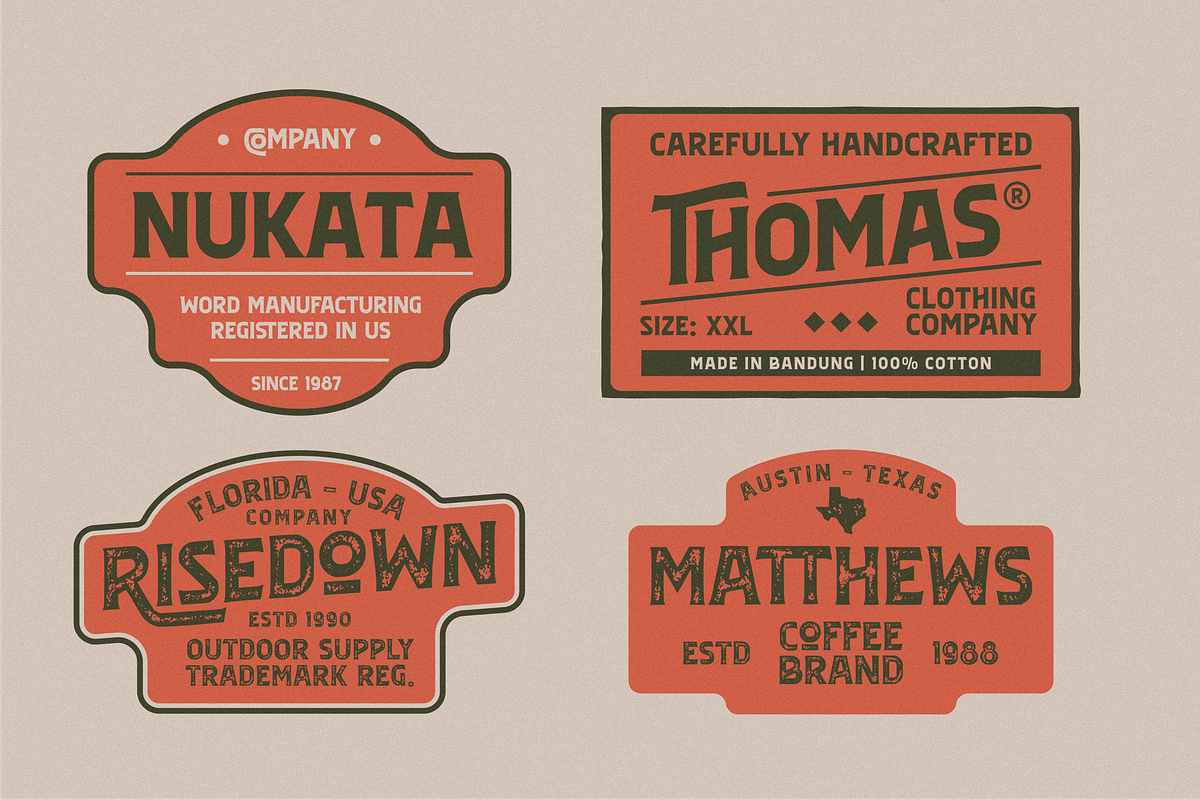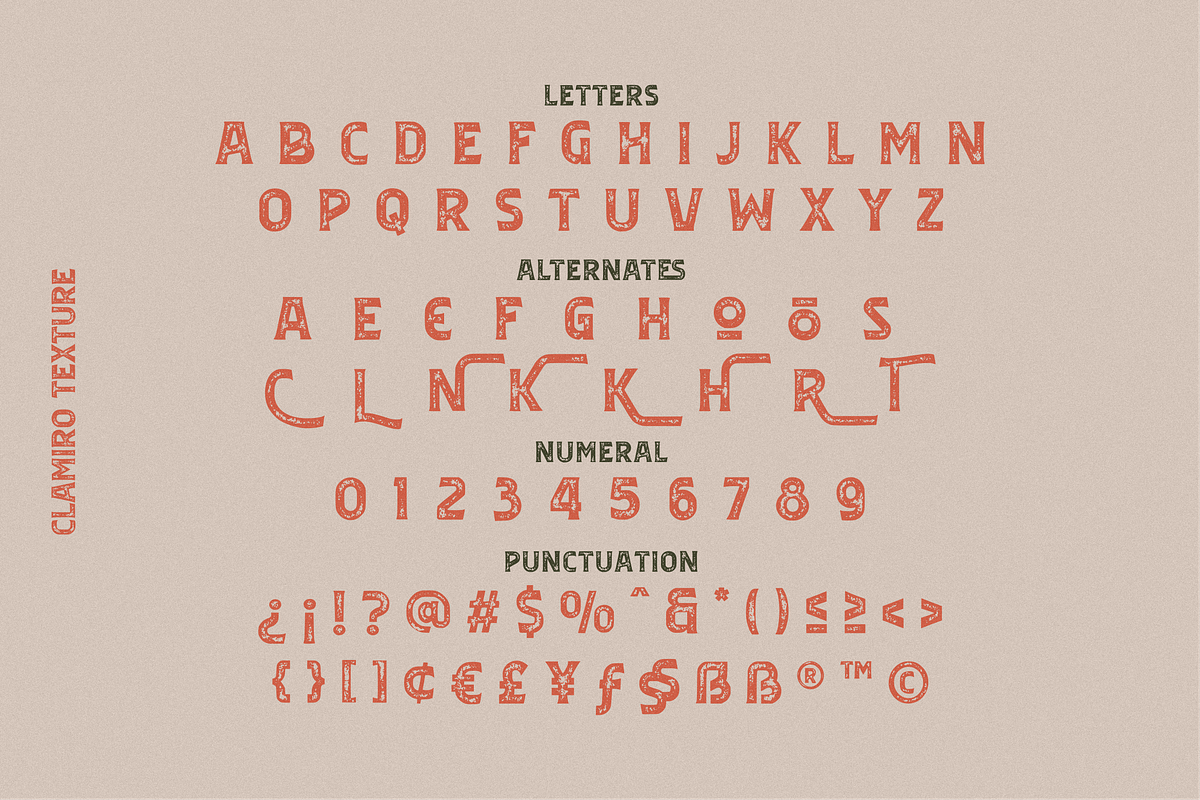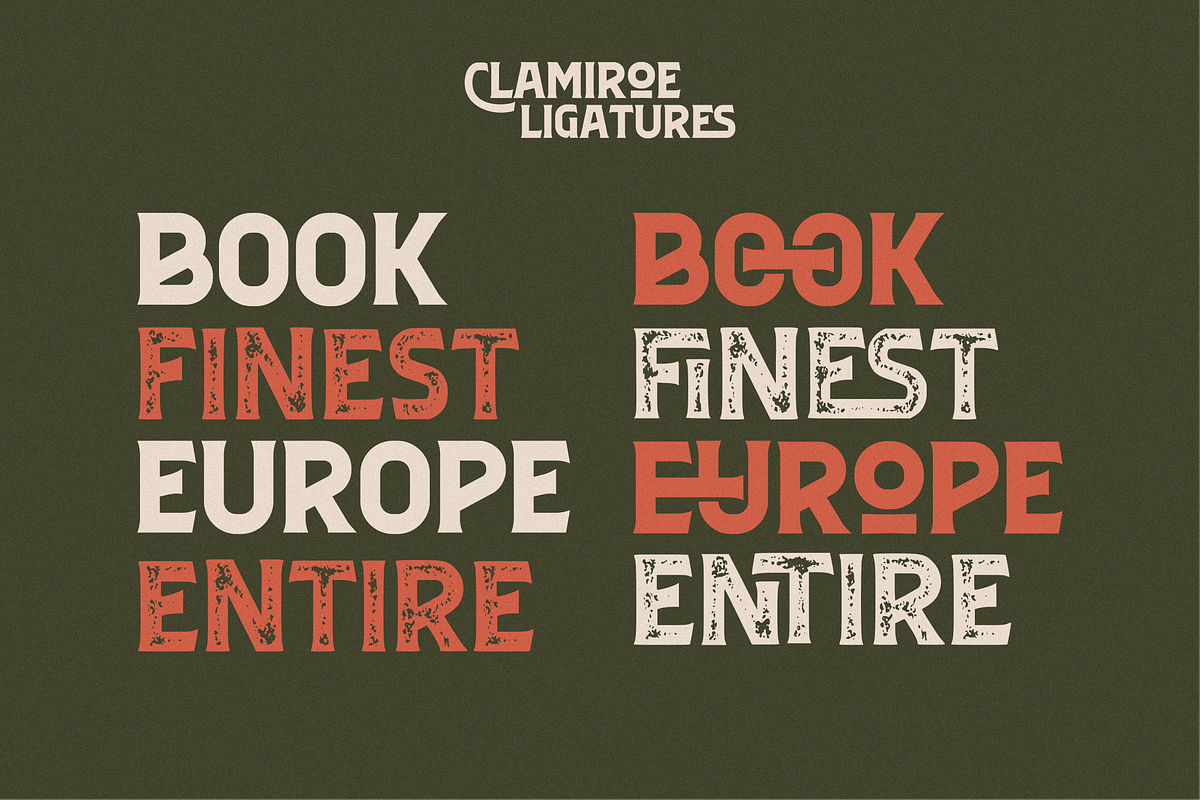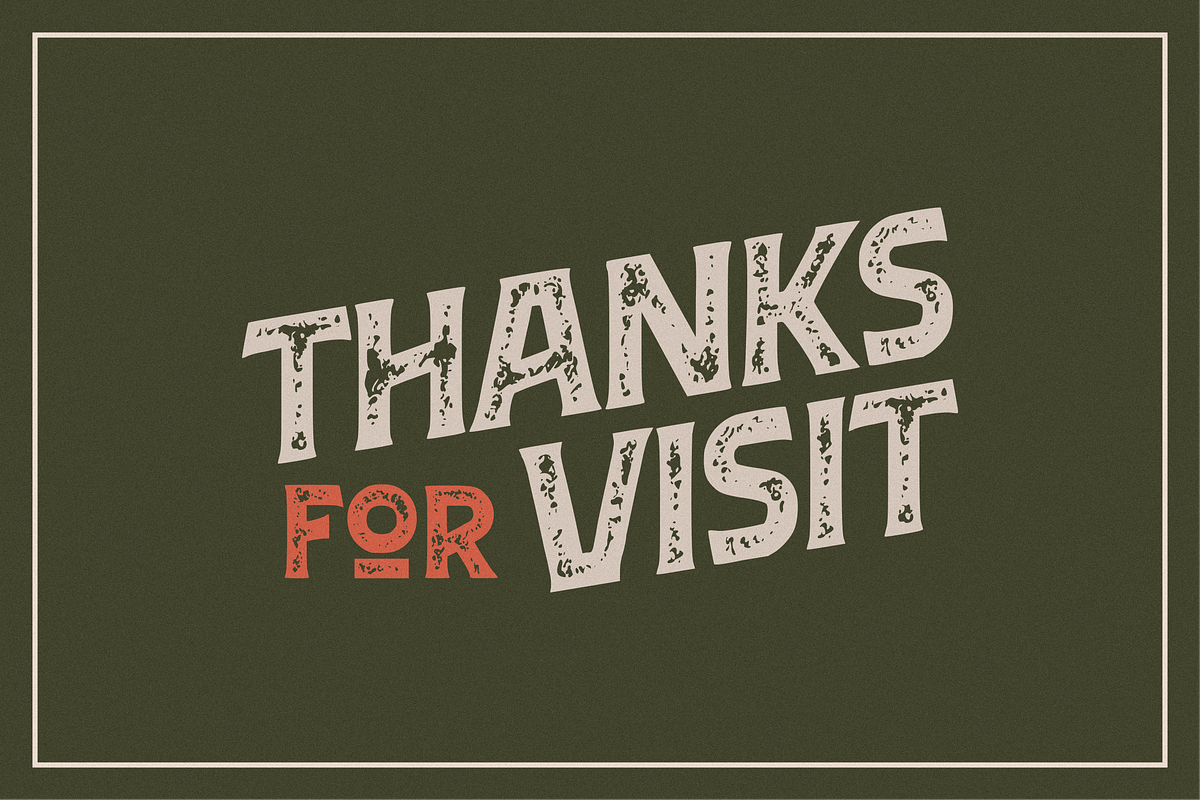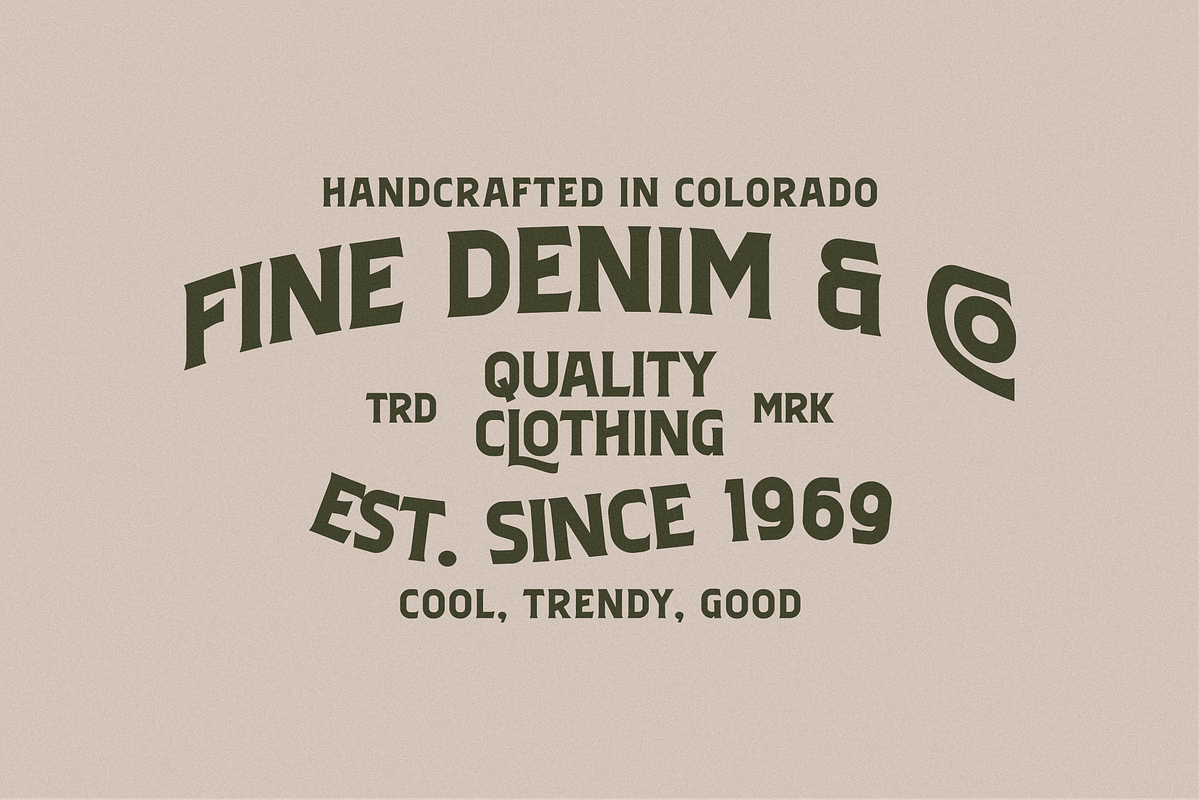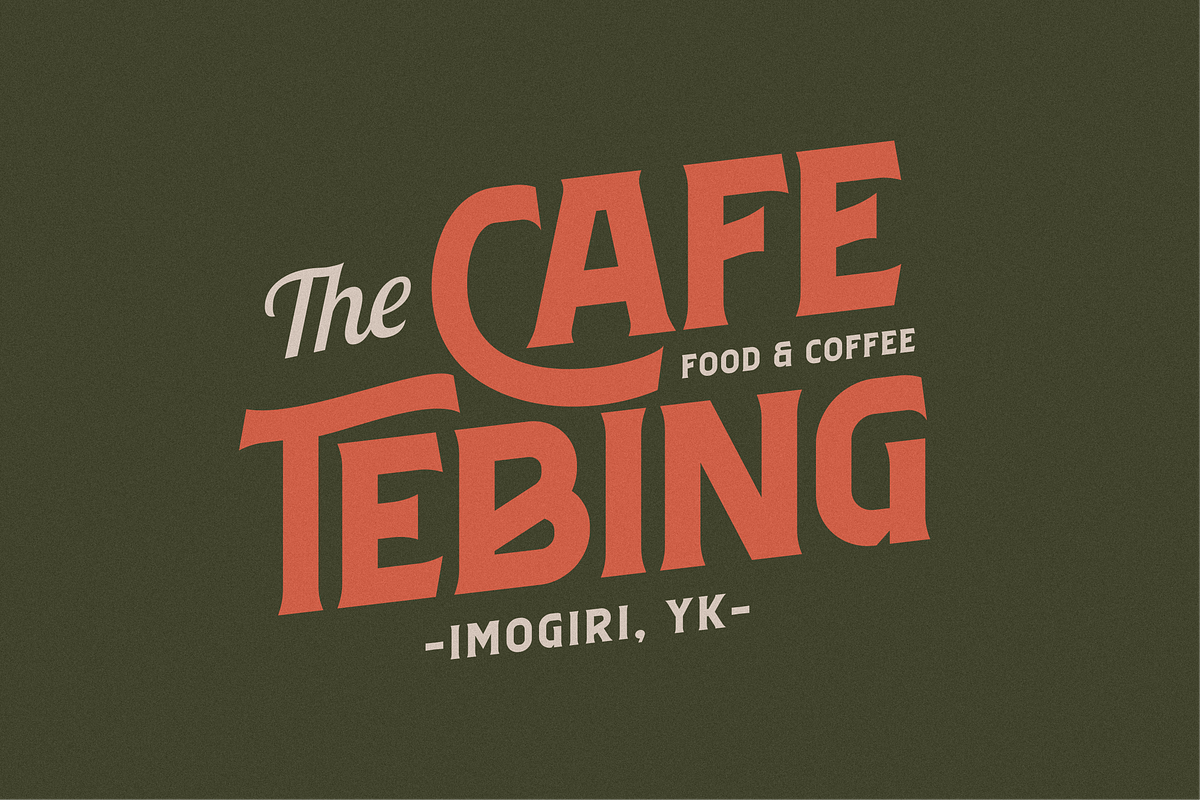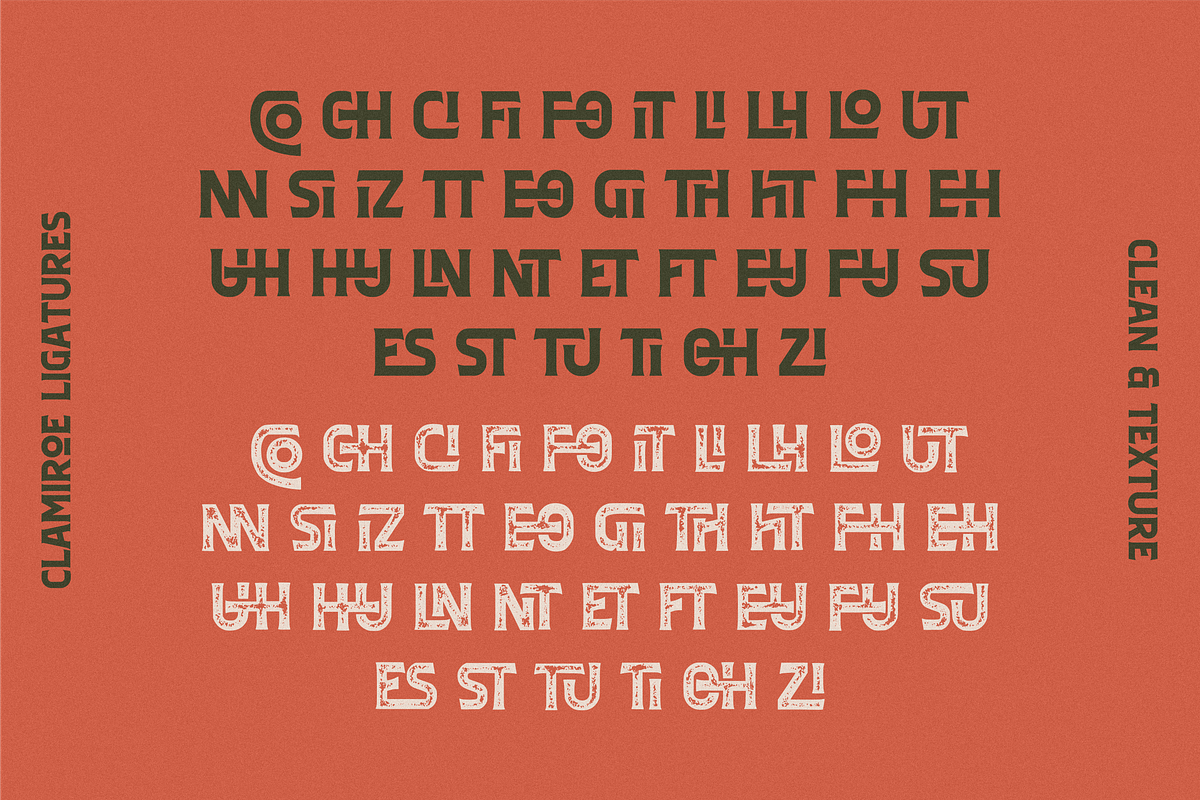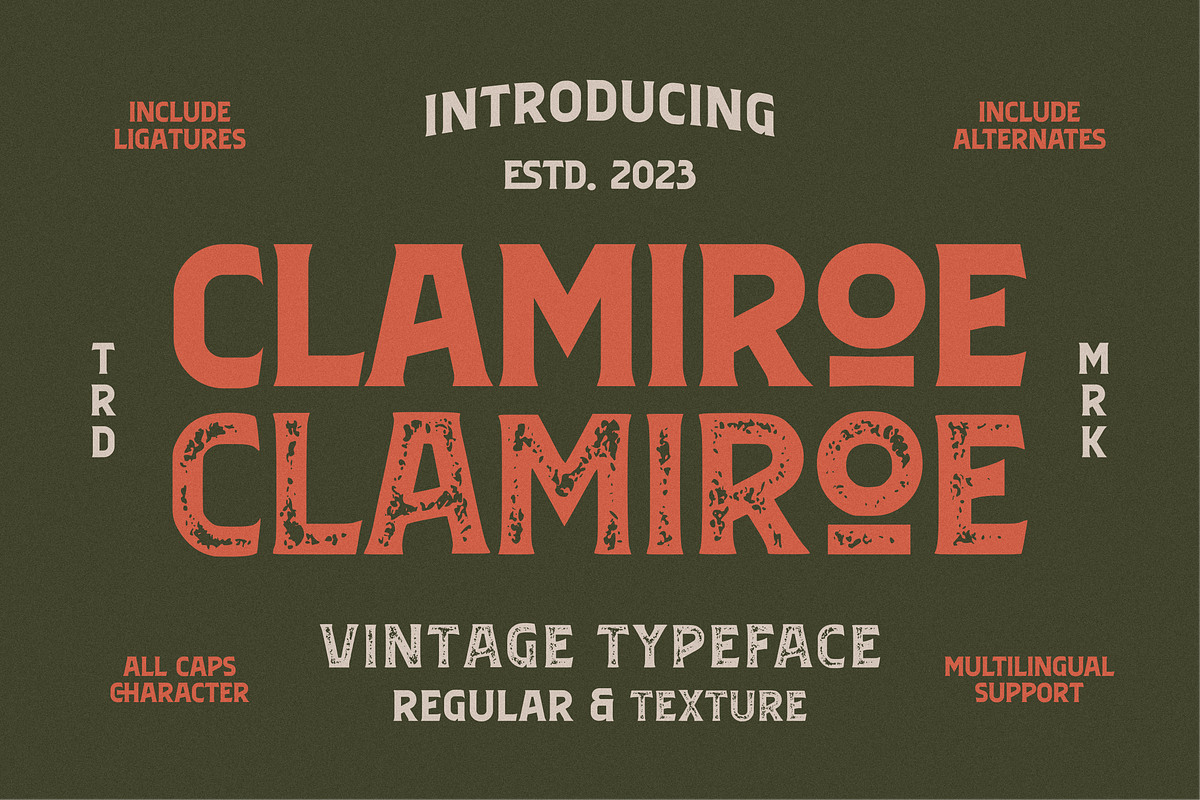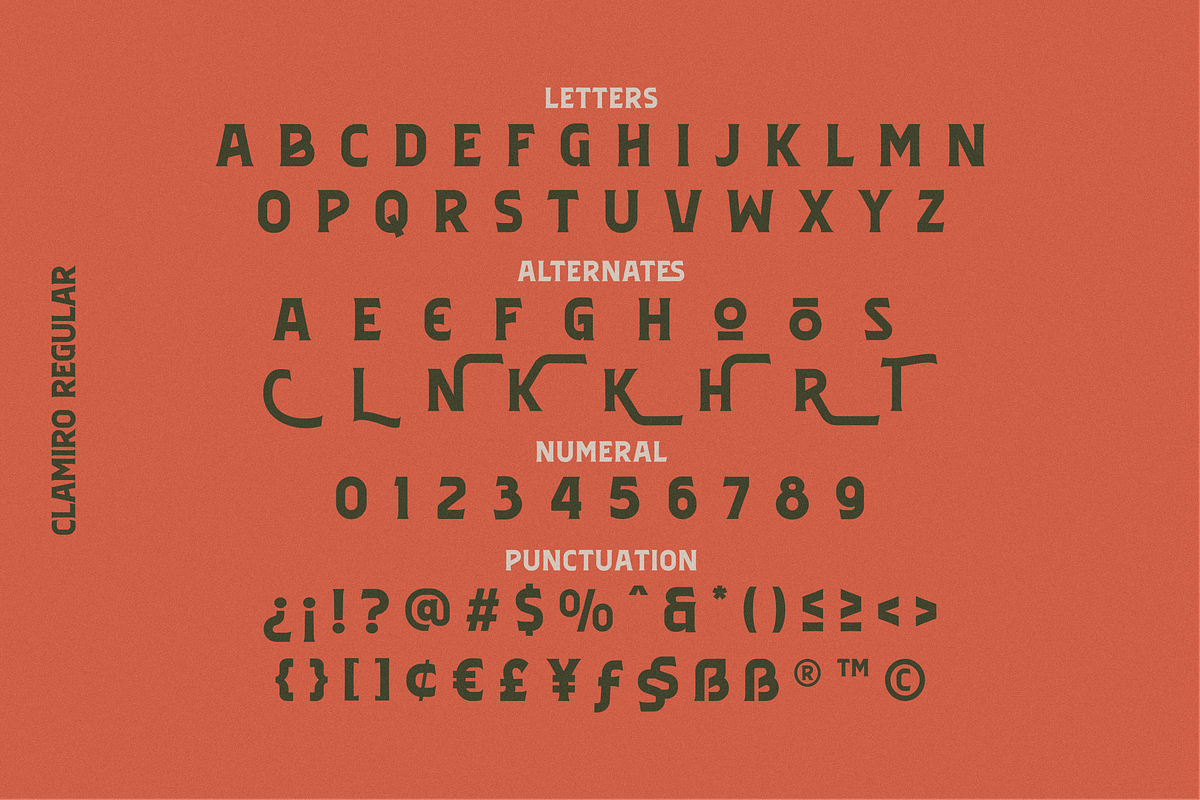
Clamiroe Vintage Typeface
Introducing new display vintage typeface with 2 style clean and textured called "Clamiroe". This font inpired by old vintage packaging design, vintage flyer headlines, and vintage sign. Clamiroe is all caps font is good for your branding, poster design, packaging, book cover, flyer, t-shirt design, and more.
This typeface include 38 Ligatures and Alternates.
- All Caps
- Style regular and texture
- Numeral
- Multilingual Support: ÆŒÀÁÂÃÅÄÇÐÈÉÊËÌÍÎÏÑŁÒÓÔÖÕØŠÙÚÛÜÝŸŽ